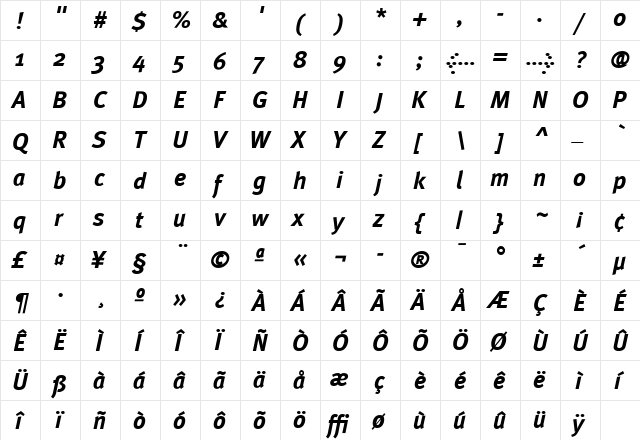
MetaPlus Bold Italic
Design Context for MetaPlus Typeface
MetaPlus takes a measured approach to typography — its balanced proportions and neutral character make it a reliable workhorse for both digital and print work. The dynamic lean of this cut emphasises speed and emphasis in any layout. The heavy weight commands attention and anchors typographic hierarchies.
Pro Tip: Use MetaPlus for emphasis, pull quotes, and subheadings where its slanted energy can add rhythm to the layout.